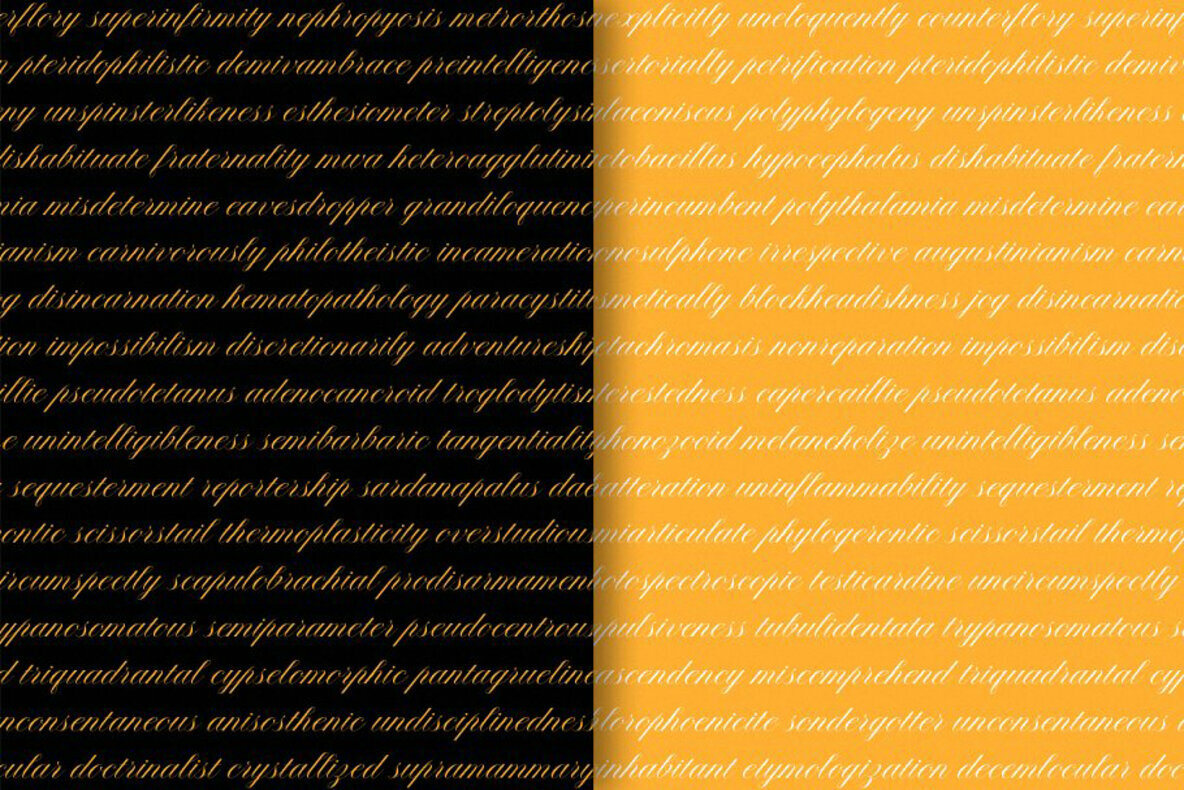
Antura Font
Antura Script
Antura Script is a distinguished calligraphy font that beautifully marries classic decorative copperplate styles with contemporary flair. Crafted by Solidtype Studio, this typeface stands out for its stylish elegance and smooth readability. With intricately designed characters, Antura Script inspires a sense of glamour and simplicity, making it an ideal choice for various creative projects. Antura Script is highly versatile, fitting seamlessly into formal designs like invitations, restaurant menus, and fashion branding. Its flowing connections and stylistic alternatives for many letters offer a feminine yet sophisticated aesthetic. The font's simple yet glamorous appeal also suits novels, magazines, and advertising endeavors beautifully.Antura Script: Classic Elegance Meets Modern Design